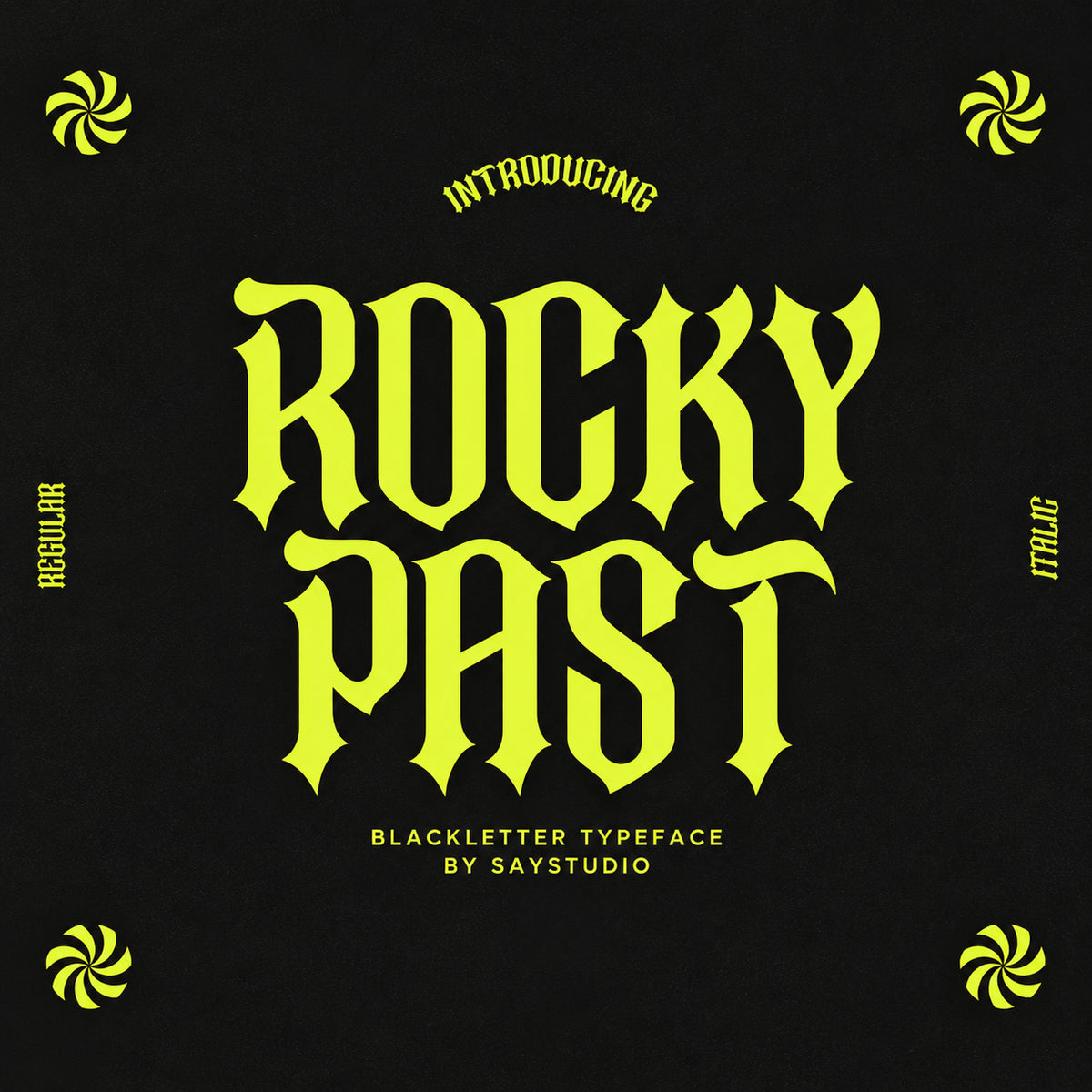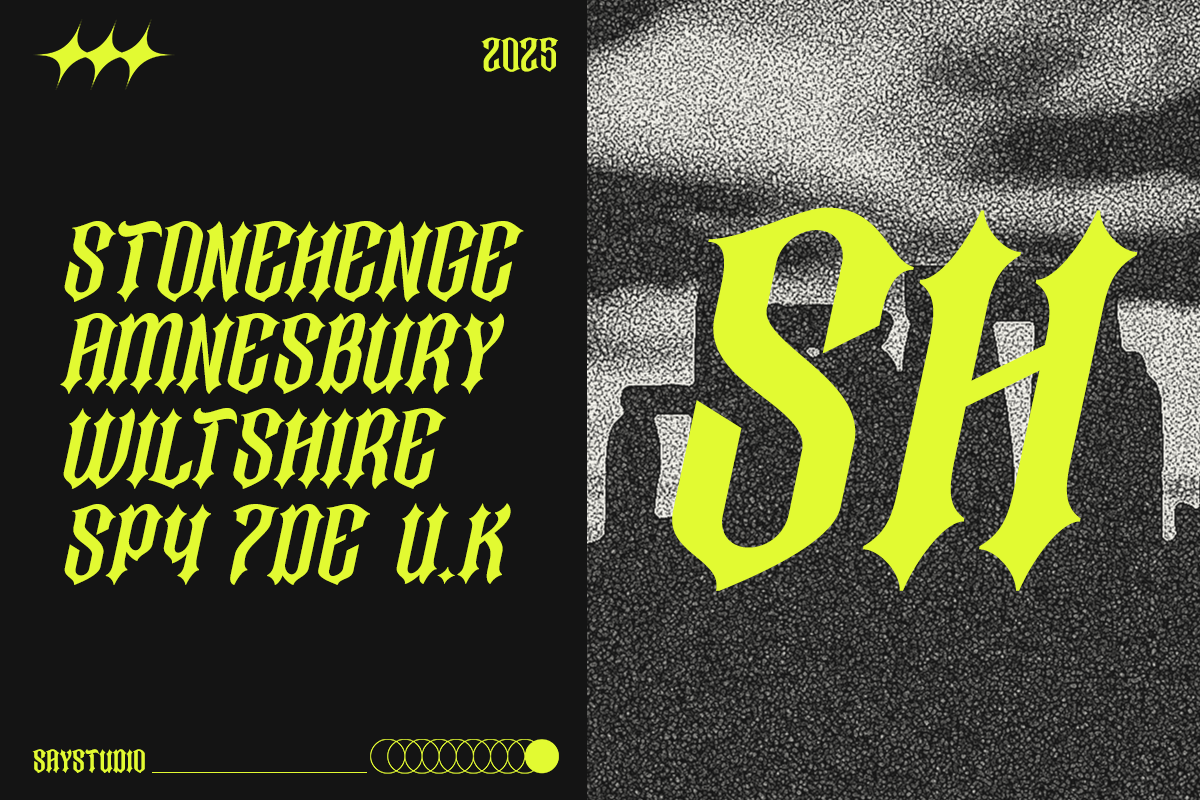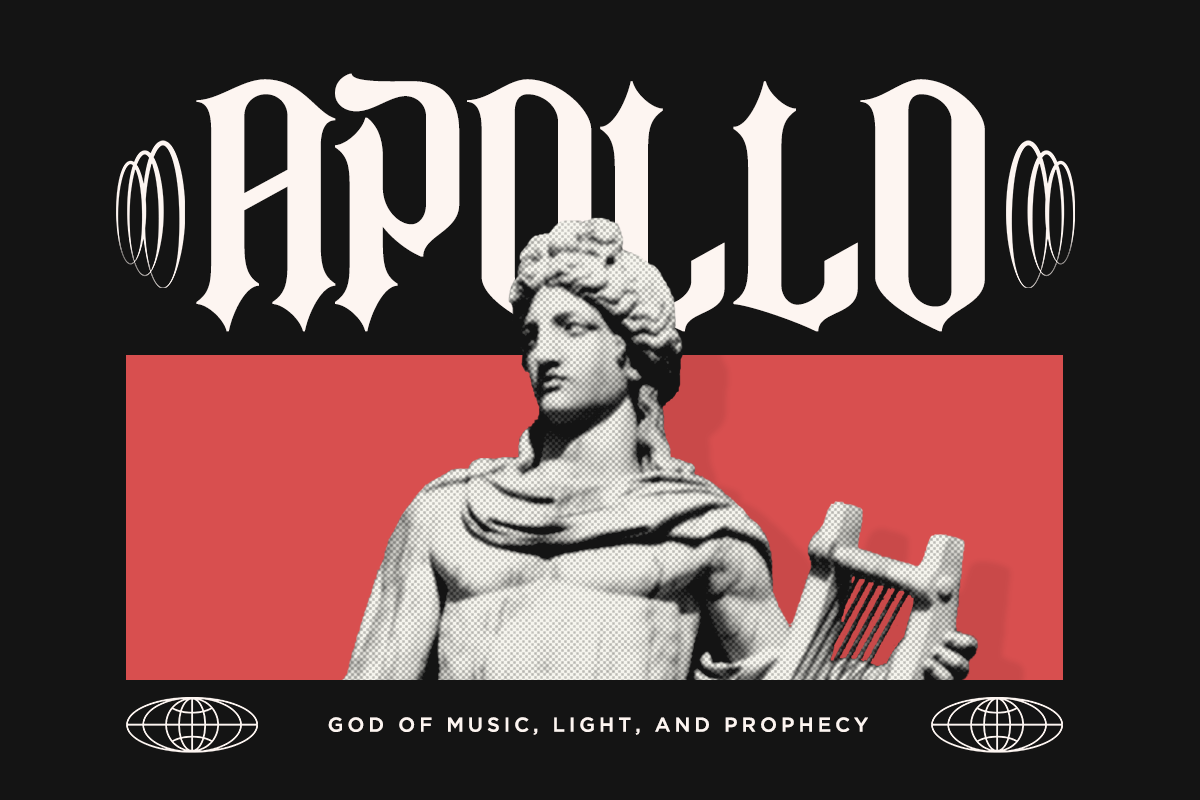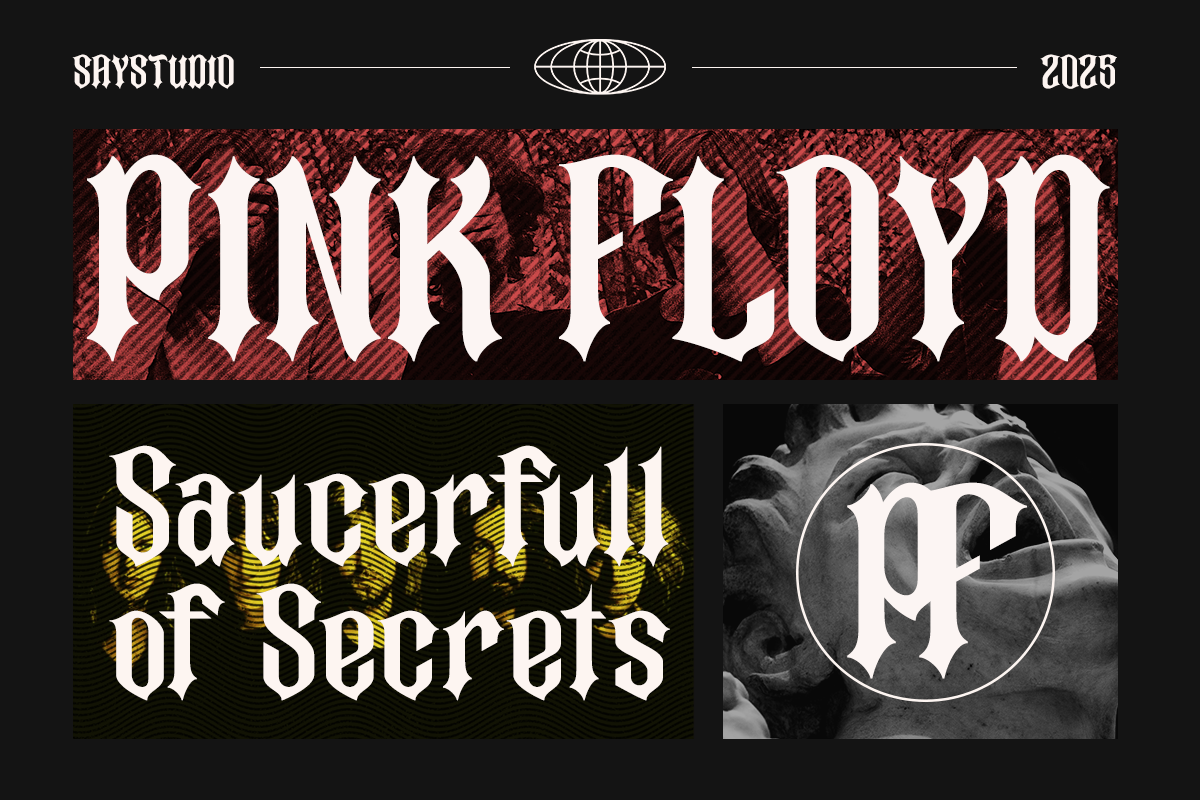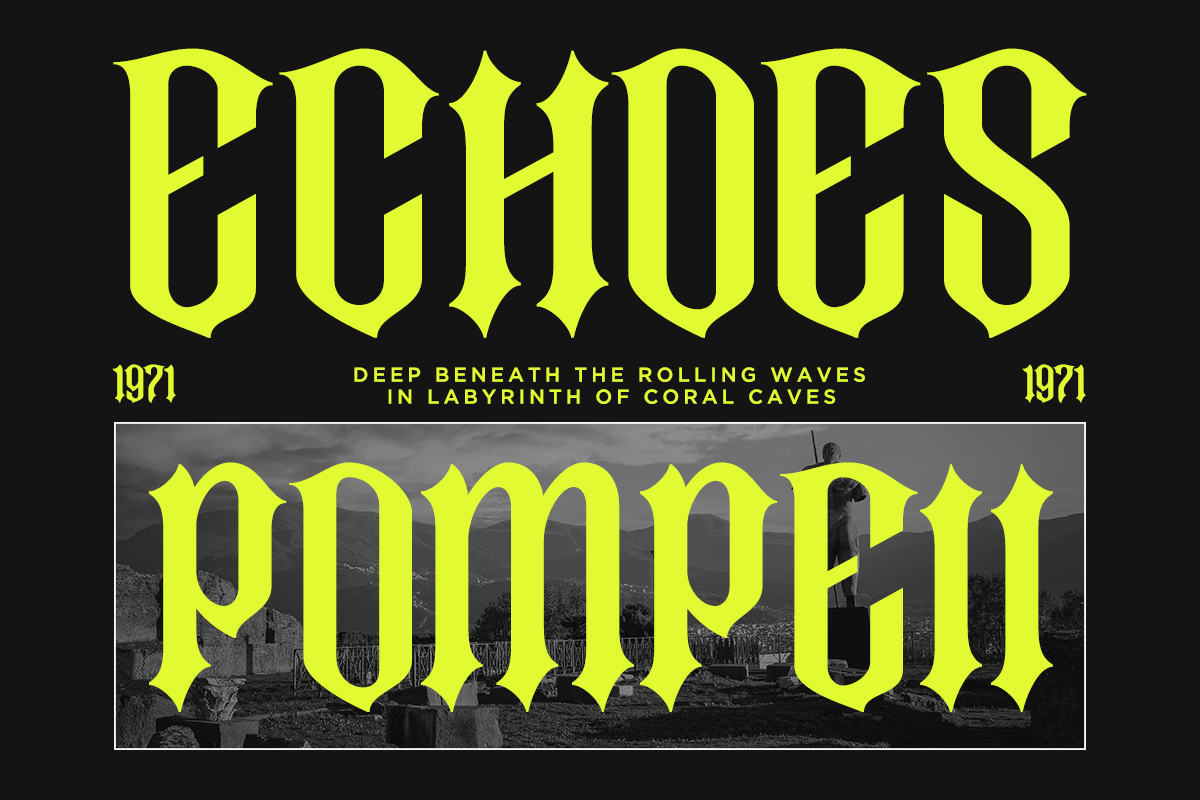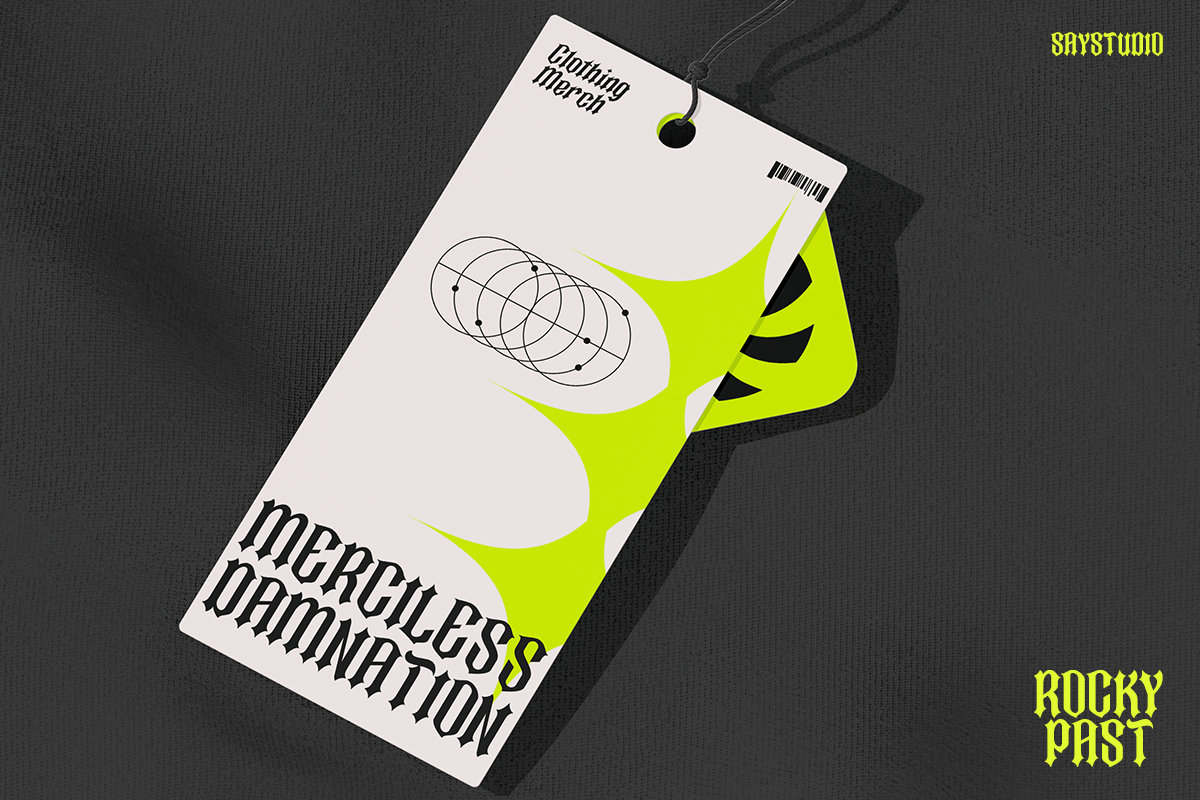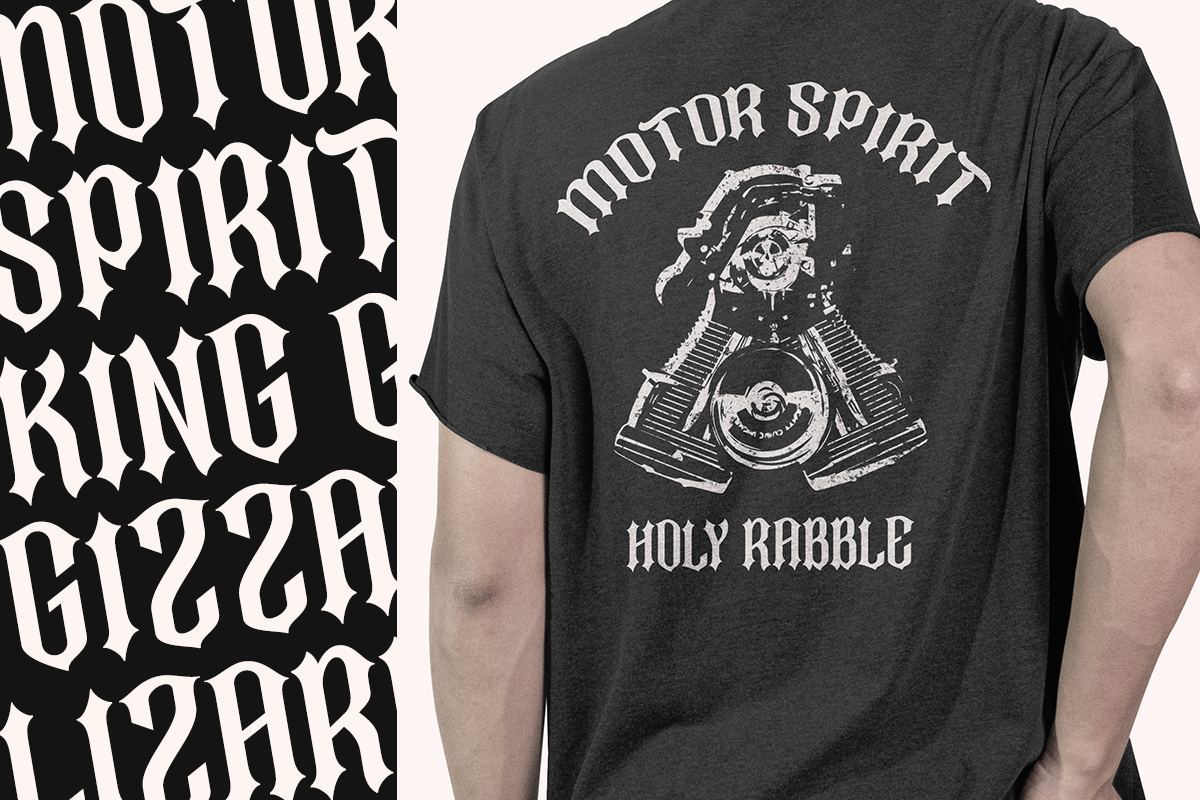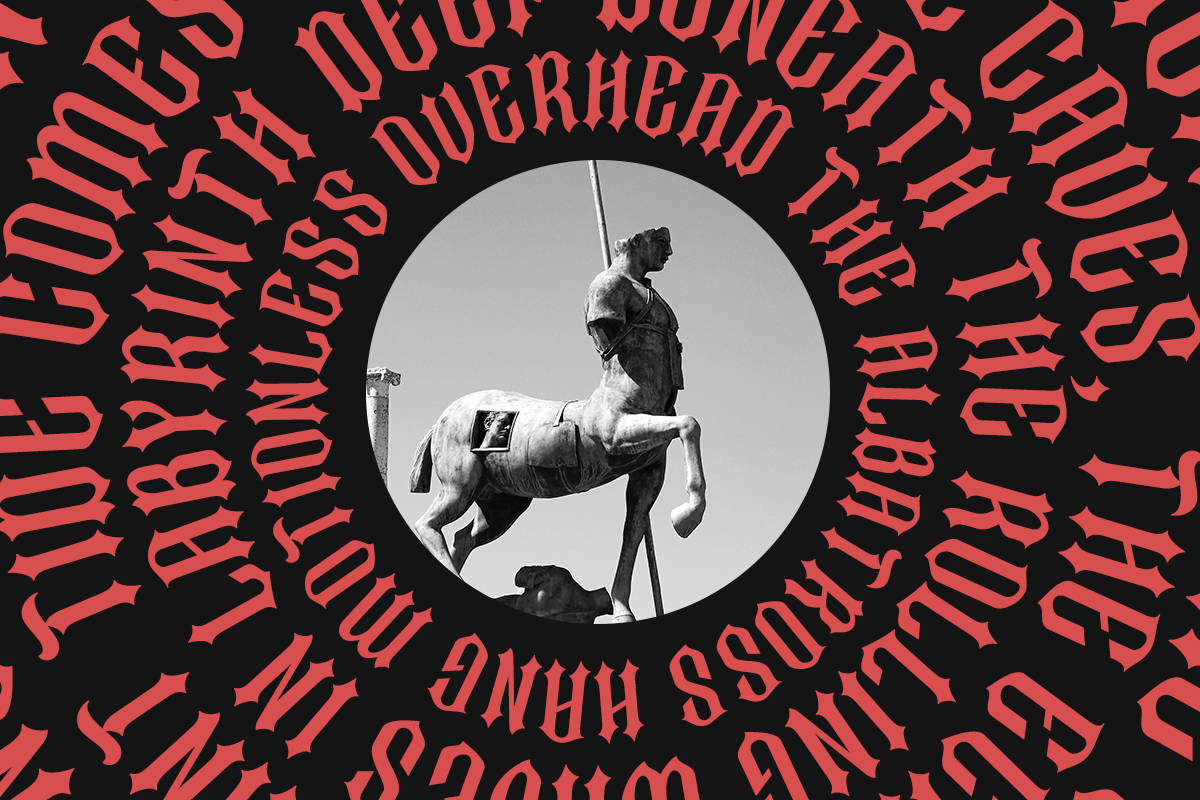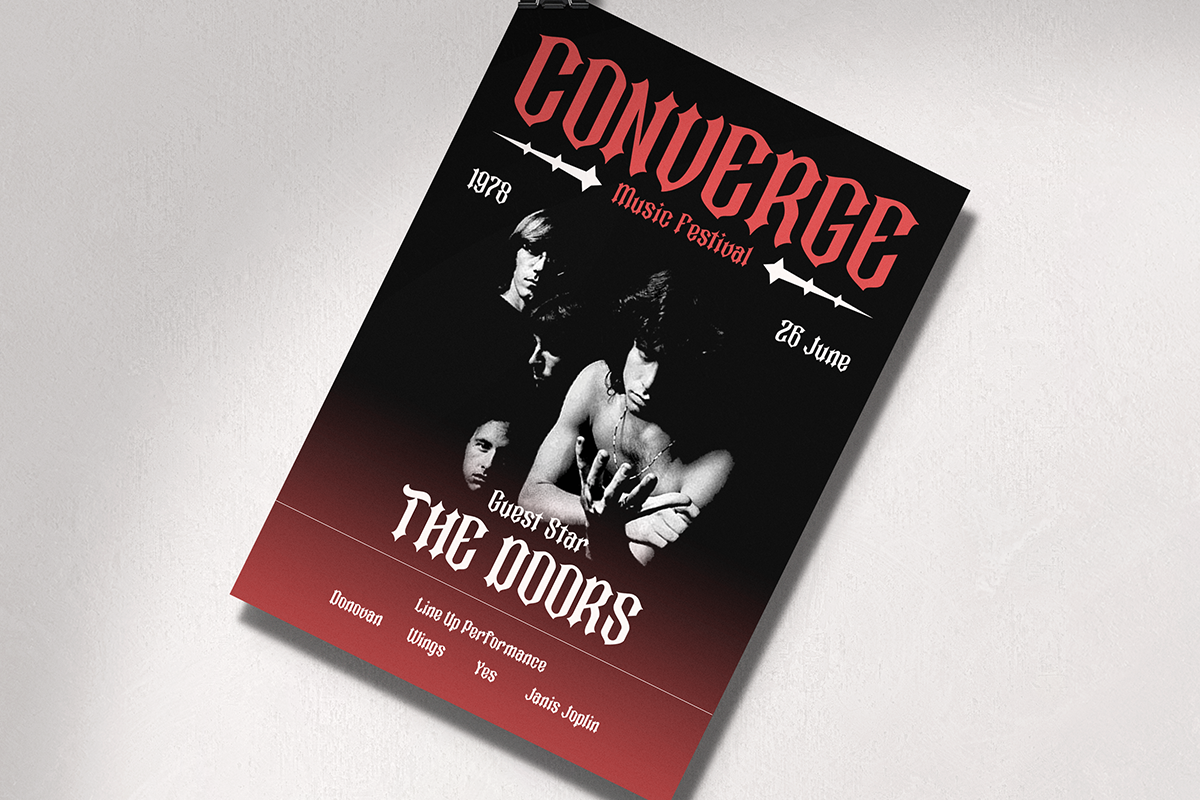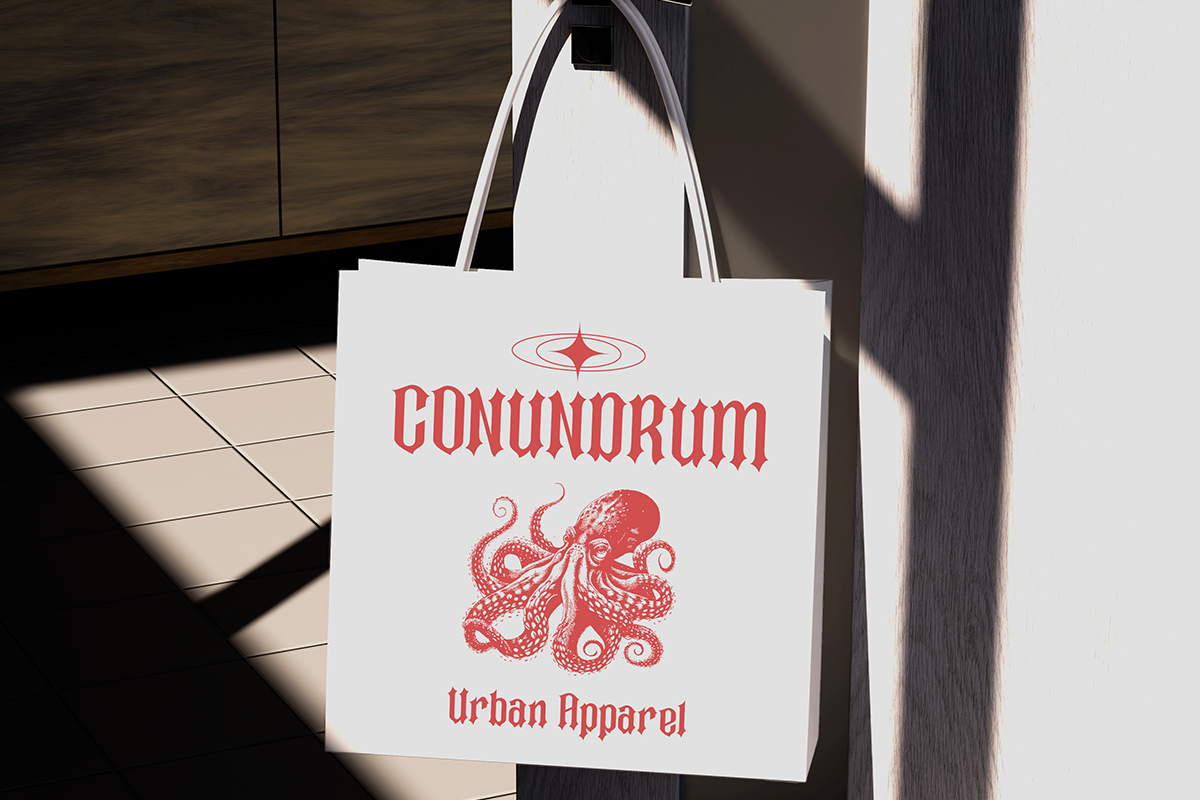
Rocky Past – Blackletter Gothic Font
Rocky Past is a bold blackletter display typeface inspired by classic gothic lettering, vintage tattoo aesthetics, and rebellious editorial design. Its sharp, dramatic forms create a strong visual identity while maintaining excellent impact at large display sizes.
Perfect for logos, branding, posters, album covers, streetwear, tattoo designs, merchandise, packaging, editorial layouts, music artwork, headlines, and vintage-inspired projects. Rocky Past brings a dark, distinctive character to designs that need a powerful and memorable typographic presence.
The typeface is especially suited for designers looking for a gothic, medieval, punk, tattoo, rock, or alternative aesthetic, making it a versatile choice for both contemporary and retro-inspired creative projects.
• Regular and Italic
• Special Alternates
• Uppercase and Lowercase
• Number, Symbols, and Punctuation
Rocky Past is a bold blackletter display typeface featuring Regular and Italic styles, special alternates, uppercase and lowercase characters, numbers, symbols, punctuation, and multilingual support. It is available in OTF, TTF, and WOFF formats.